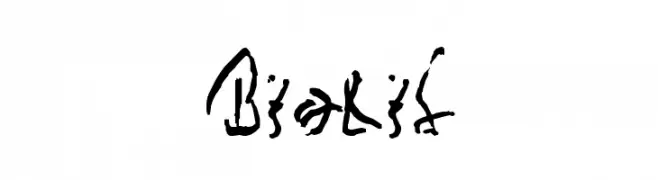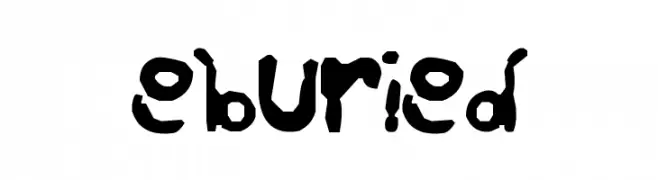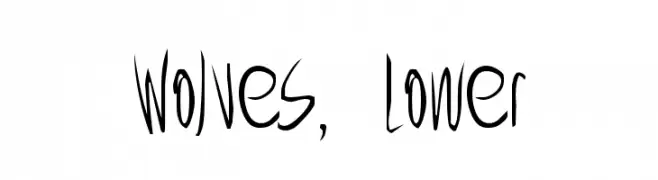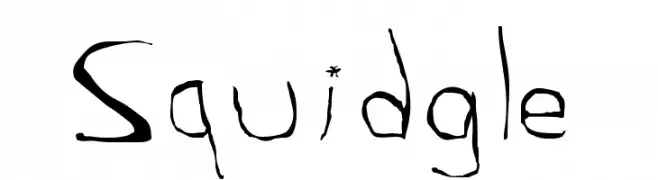
A playful, hand-drawn font with bold, irregular strokes and quirky letterforms.
An expressive, hand-drawn font with dynamic, irregular strokes and a chaotic aesthetic.
A dynamic, expressive handwritten font with irregular, playful strokes.
A playful, handwritten font with irregular, organic letterforms and a whimsical style.
A playful, hand-drawn font with bold, irregular strokes and a whimsical style.
A bold, hand-drawn font with a playful and irregular style.
A bold, playful font with irregular, chunky characters.